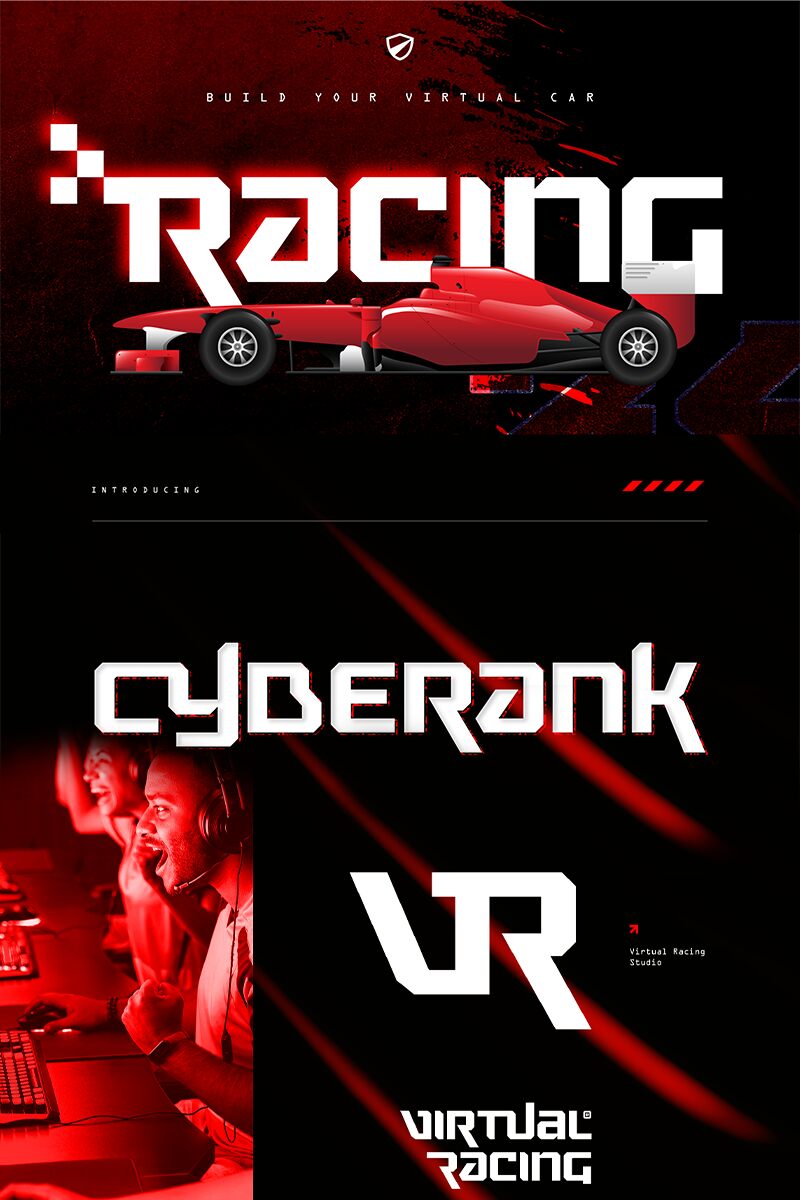
Cyberank font by Namara Creative is a free techno font with a contemporary futuristic look. Featuring geometric shapes, the font has a modern and dynamic overall aesthetic ideal for digital designs. It also has aggressive and impactful details with angular edges that make its presence instantly noticeable.
Cyberank techno display typeface is a bold geometric font characterized by sharp angles, perfect for unleashing creativity and transforming your designs. This striking free font will make your projects stand out with its distinctive style.